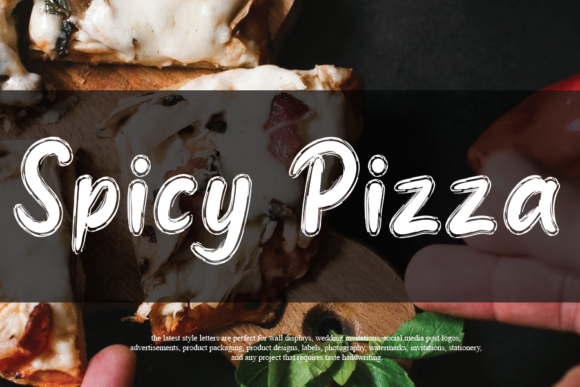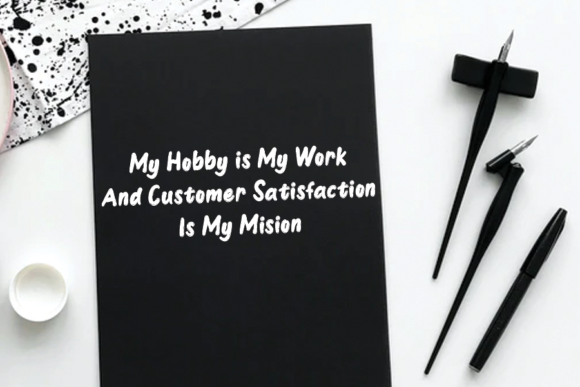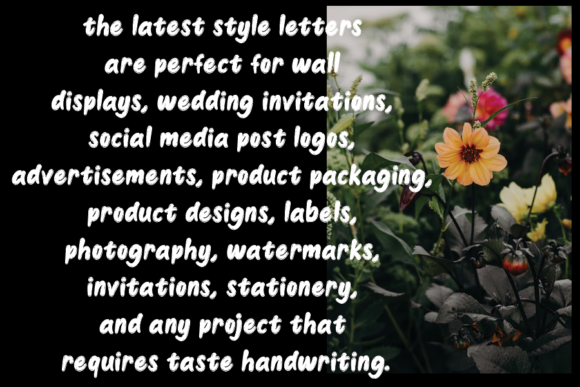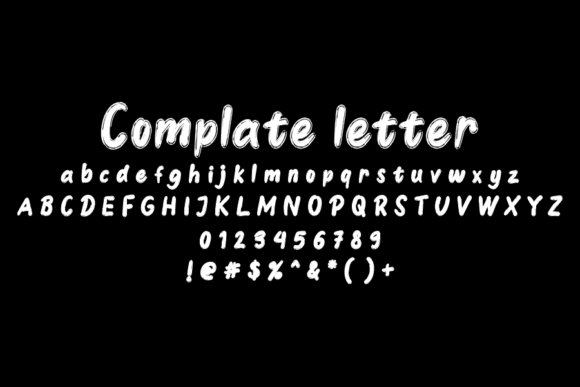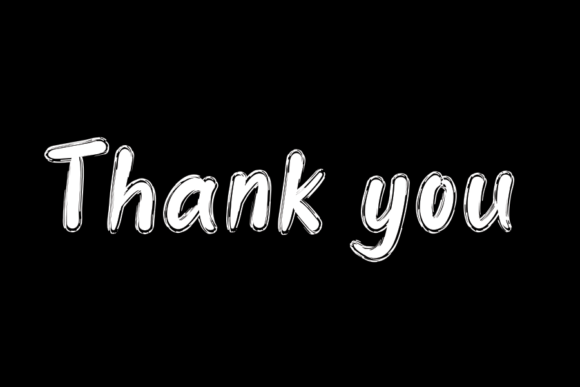
About Spicy Pizza Font
Spicy Pizza is an exquisite handwritten font, masterfully designed to become a true favorite. It maintains its classy calligraphic influences while feeling contemporary and fresh. Fall in love with it and bring your projects to the highest levels!